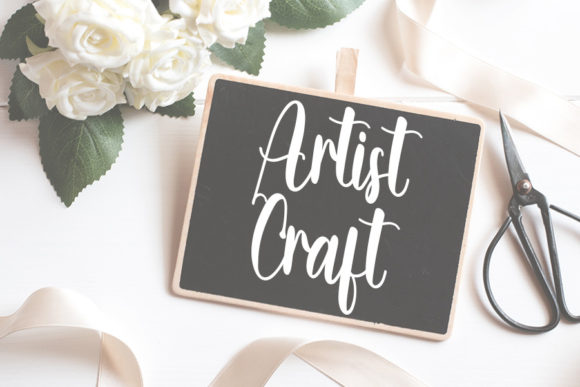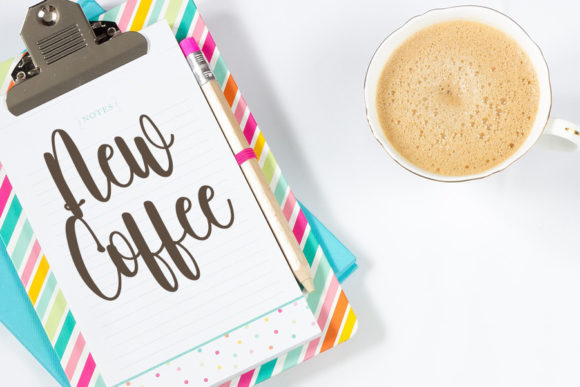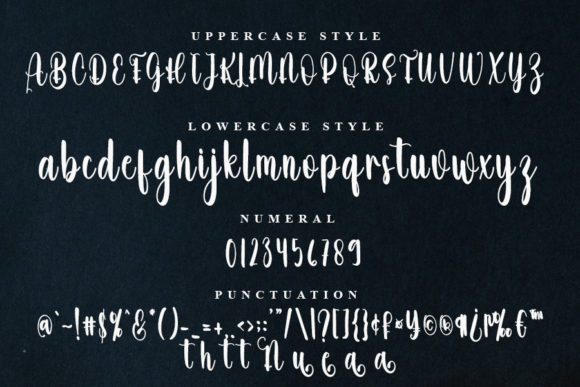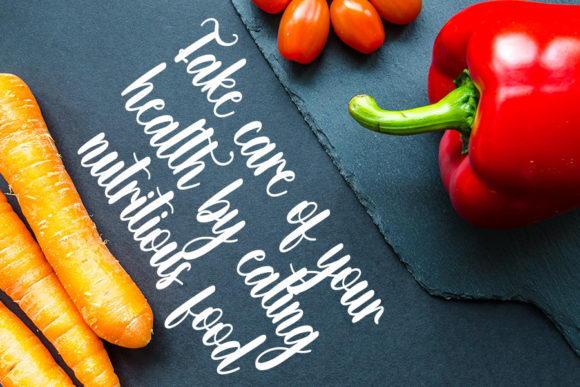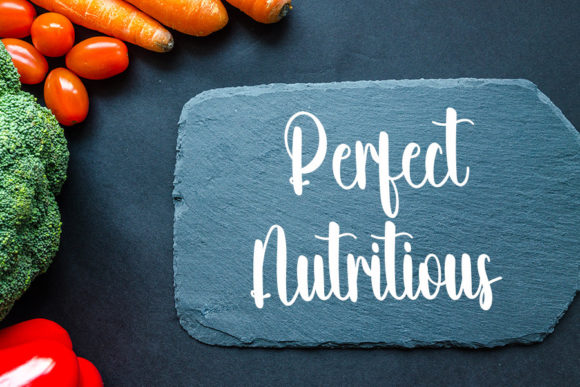
Nagitha Font
About Nagitha Font
Nagitha is a beautiful and refined script font. It has a classy, elegant and modern look that can be used for logos, branding, invitations, stationery, wedding designs, social media posts, and much more!